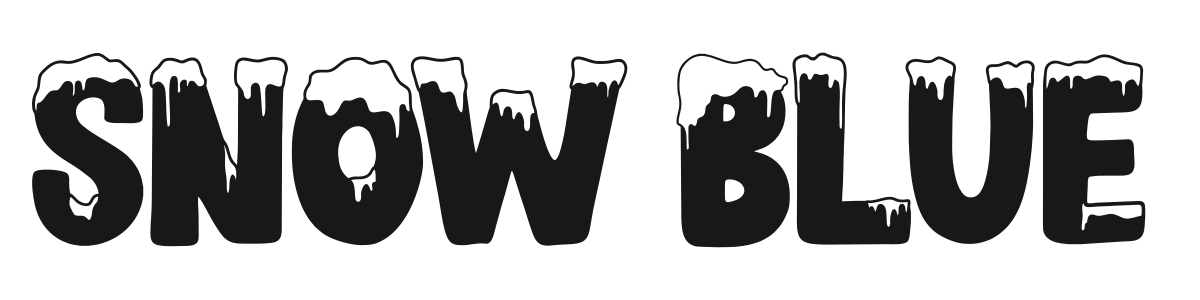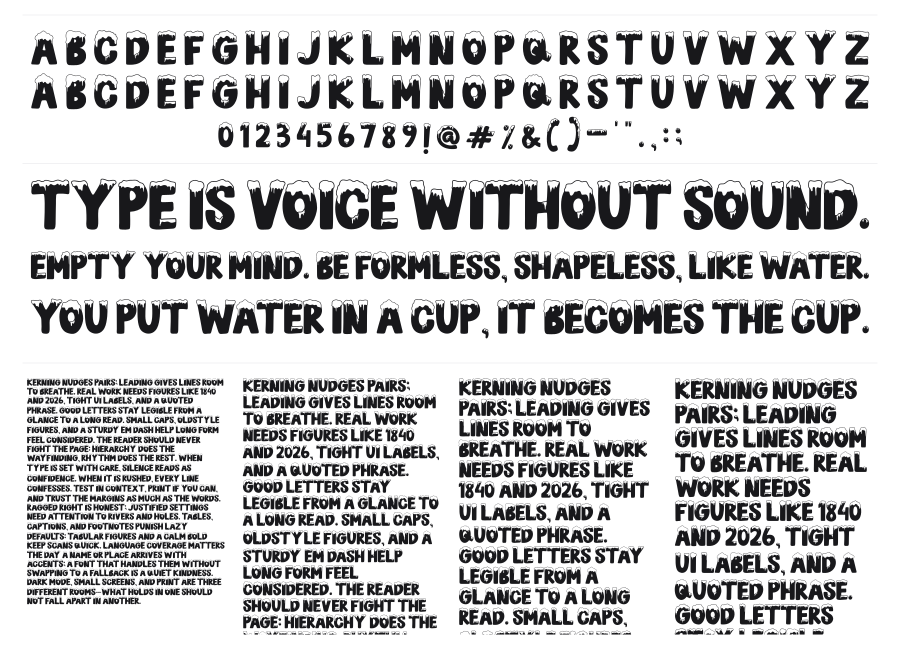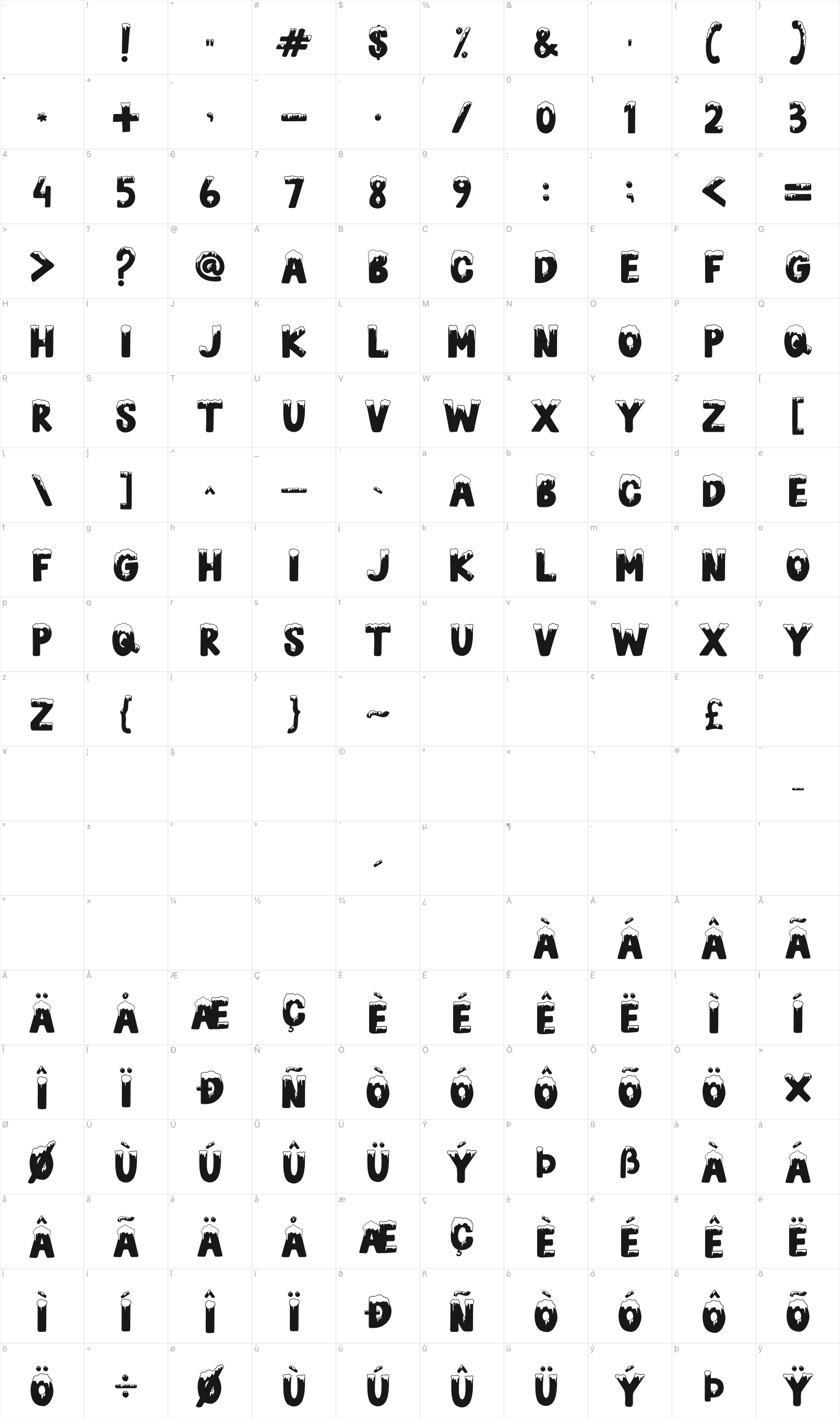
Snow Blue
Snow Blue is a heavy display font where every letter wears a cap of accumulated snow and dripping icicles. The base characters are thick and bold, giving the decorative snow elements plenty of surface to settle on. It reads instantly as winter or holiday-themed without leaning into overtly Christmas-specific imagery.